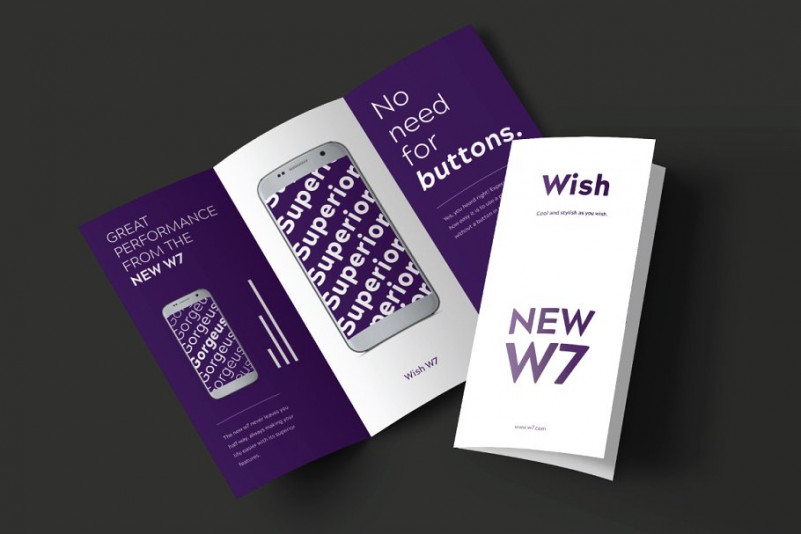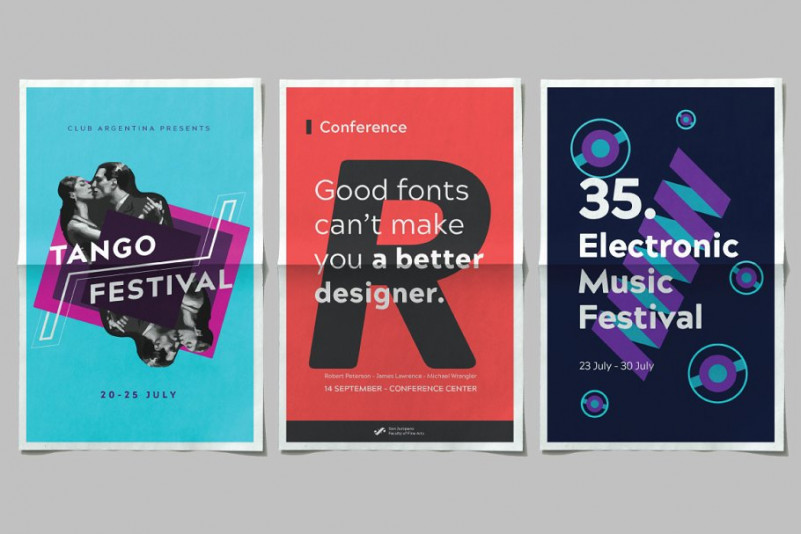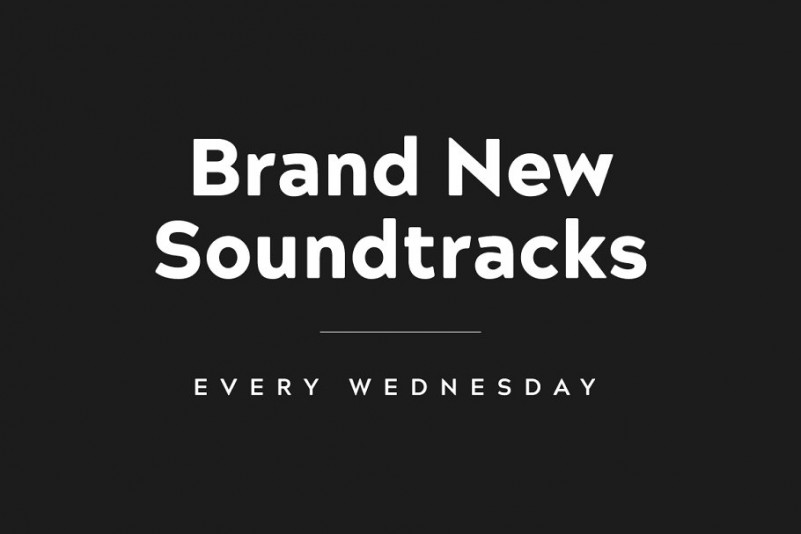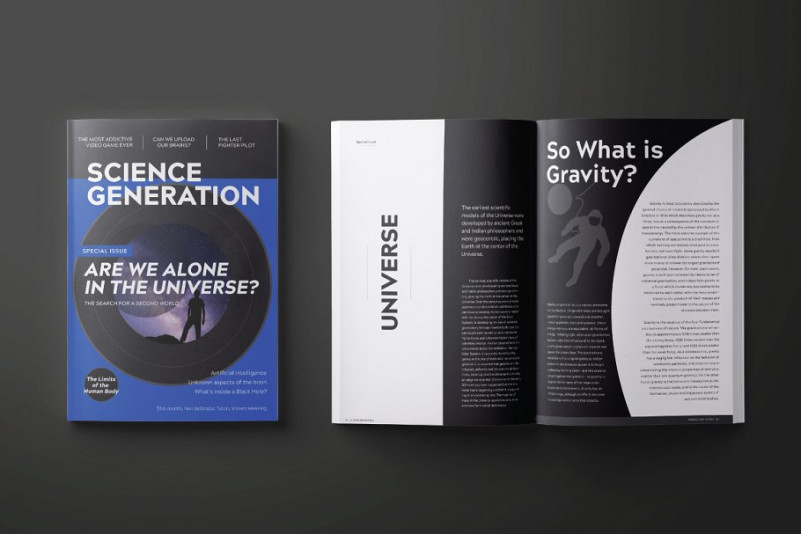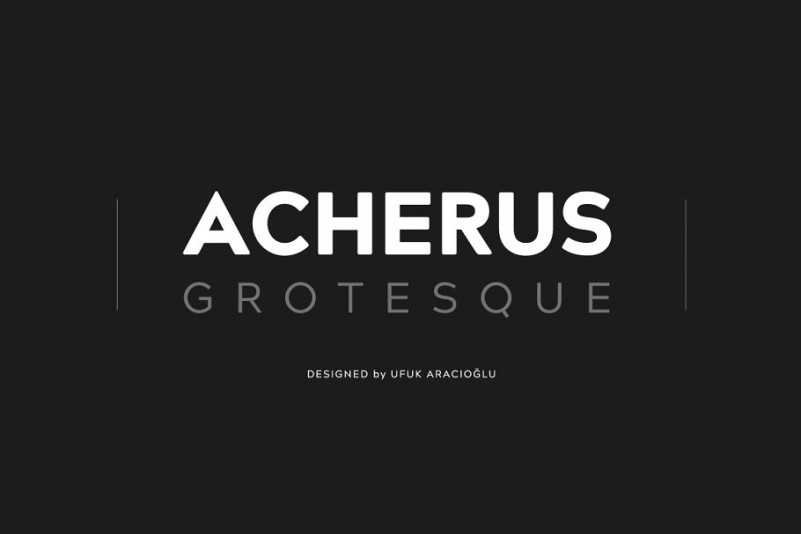
Acherus Font Family
Acherus Grotesque Font Family – Free Demo
Dear All. Introducing the new sans serif font family. Acherus Grotesque designed by Ufuk Aracıoğlu, this typeface has sixteen styles and was published by Horizon Type, Acherus Grotesque Font Family is a rounded sans serif type family based on geometric forms. It comes in 16 styles, 8 uprights and matching italics. Each weight includes extended language support, ligatures and more. Acherus Grotesque is incredibly useful for nearly any creative design. It will be perfect for creating nicely looking headlines that you always find in fashion web stores and minimal portfolio websites. You can create stunning logotypes and branding designs with this typeface.